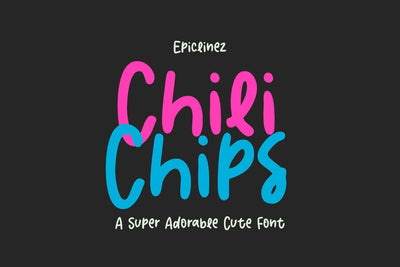
Chili Chips - A Fun Crafty Font
Chili Chips is a playful handwritten font. Looks great on a children's craft, teaching material, quotes, or any other design that needs a splash of cuteness!